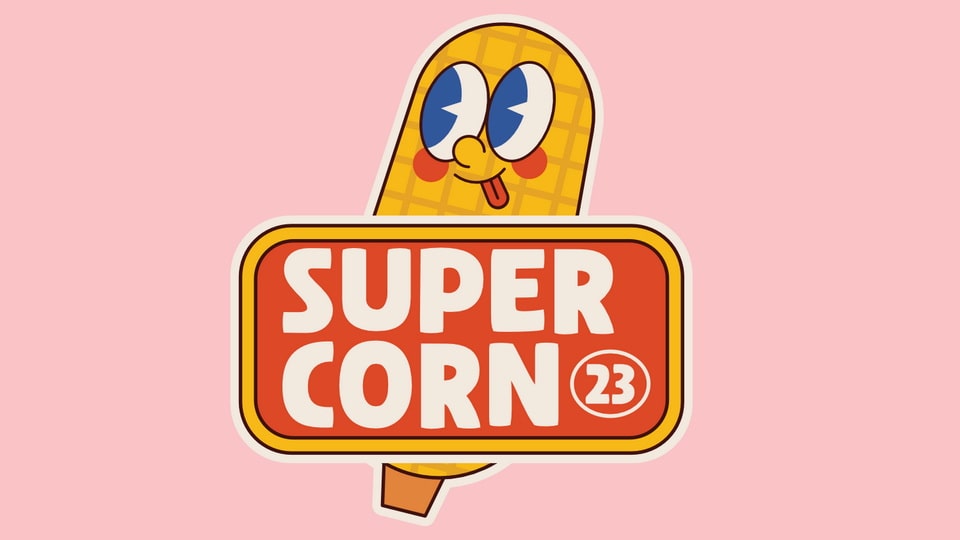
Super Corn is a bold cartoon font that brings a vibrant burst of playful energy and vibrant personality to your designs.
Super Corn font features a robust and cheerful design, with each letter exuding a sense of lively statement. Whether you’re crafting children’s book titles, captivating posters, or eye-catching signage, this font infuses a burst of cartoonish personality that captures attention with its bold and cheerful aura.